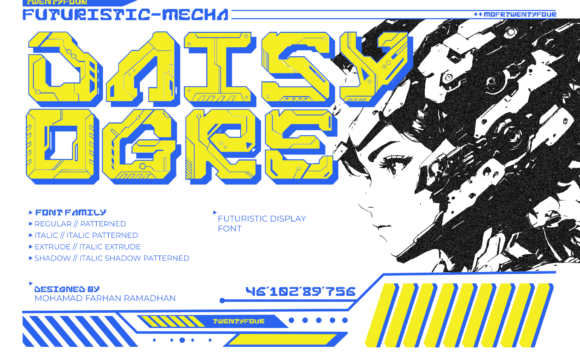
Introducing Daisyogre: A bold, futuristic, and monospaced typeface that will transport your designs into the captivating world of anime Synduality: Noir. Created by the talented Mofr24 Studio, this font is a must-have for anyone seeking to add a touch of mechanical elegance to their creative projects.
With its 8 unique styles, Daisyogre offers a versatile range of options that will surely captivate your audience. Whether you're designing posters, marketing materials, titles, T-shirt graphics, games, or art crafts, this font is guaranteed to make a lasting impression.
Immerse yourself in the essence of machinery and mecha aesthetics as Daisyogre effortlessly blends modernity with a nostalgic nod to anime. Its bold and powerful strokes command attention, while the monospaced nature of the font ensures clean and consistent lines.
But it's not just about appearances. Daisyogre is crafted to deliver an emotional impact. The moment you lay eyes on this font, you'll feel the surge of creativity and inspiration that only a truly remarkable typeface can evoke. It invites you to explore new boundaries and push the limits of your imagination.
Imagine your posters standing out from the crowd, effortlessly drawing people in with their captivating charm. Picture your marketing materials leaving a lasting impression on potential customers, conveying professionalism and innovation. Envision your T-shirt designs becoming wearable works of art, attracting attention wherever they go.
Daisyogre empowers you to elevate your designs to new heights. Its bold and futuristic aesthetic sets you apart from the ordinary, allowing you to make a statement and leave your mark. It's the font that screams confidence and uniqueness, transforming your creative projects into unforgettable experiences.
Don't settle for ordinary fonts when you can have the extraordinary. With Daisyogre, you're not just downloading a font, you're opening the doors to a world of endless possibilities. Let your imagination roam free and watch as your designs come to life with an unrivaled sense of style and sophistication.